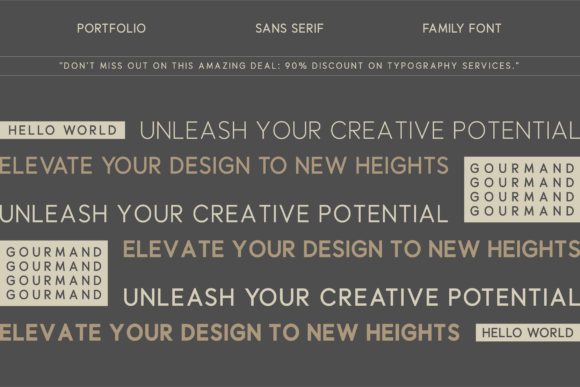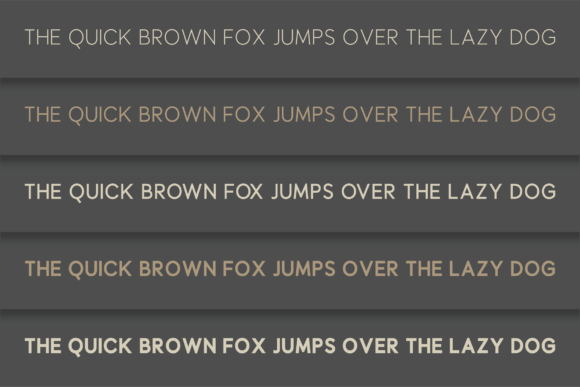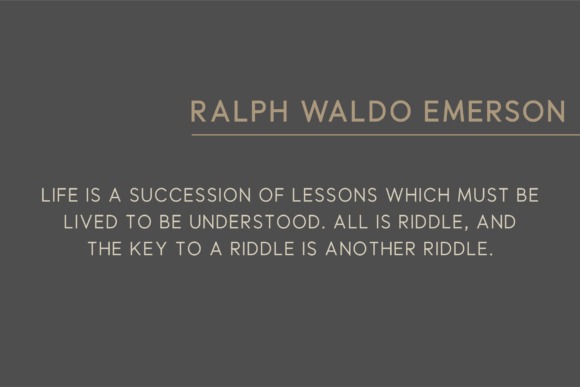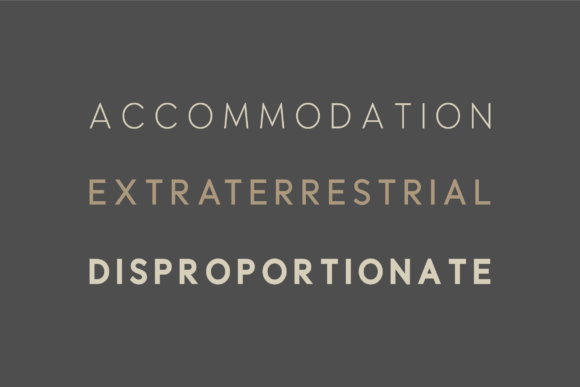
Introducing Gourmand Font Family — A Masterpiece of Elegance and Minimalism
In the realm of typography, few font families manage to strike a perfect balance between elegance and minimalism. However, Gourmand Font emerges as a game-changer, redefining modern design with its sleek and sophisticated sans-serif aesthetic. This meticulously crafted font family is designed to cater to a wide array of design needs, offering 5 distinct weights that ensure unparalleled versatility.
The Essence of Gourmand Font
Gourmand Font is not just a typeface; it’s an experience. Its design is rooted in the principles of precision and attention to detail, making it an ideal choice for projects that demand a high level of sophistication. From the crisp lines of its light weights to the bold statements of its heavier counterparts, Gourmand Font is engineered to adapt seamlessly to various design projects. Whether you’re working on a magazine layout, crafting a logo, or creating a film poster, this font family provides the tools necessary to elevate your work to new heights.
Versatility at Its Core
One of the standout features of Gourmand Font is its versatility. The inclusion of 5 distinct weights means that designers have the flexibility to use a single font family across a wide range of applications. This not only streamlines the design process but also ensures a cohesive visual identity across different platforms and materials. The weights range from a delicate light weight, perfect for body text and finer details, to a robust bold weight, ideal for headlines and attention-grabbing titles.
Timeless Charm and Contemporary Luxury
Gourmand Font embodies the perfect blend of timeless charm and contemporary luxury. Its clean lines and minimalist aesthetic ensure that it remains relevant and stylish, even as design trends evolve. This font family is designed to lend your creations an air of sophistication and elegance, making it an excellent choice for designers who aim to produce work that stands out for its luxury appeal. Whether you’re designing for high-end brands, luxury products, or any project that requires a touch of class, Gourmand Font is the perfect companion.
Unlocking New Levels of Creativity
With Gourmand Font, designers are empowered to push the boundaries of their creativity. The font’s adaptability and aesthetic appeal open up new possibilities for design innovation. By incorporating Gourmand Font into your projects, you’re not just choosing a typeface; you’re embracing a design philosophy that prioritizes elegance, versatility, and impact. This font family serves as a catalyst for creativity, allowing designers to experiment with different weights, styles, and applications to achieve truly unique and compelling designs.
Why Choose Gourmand Font?
- Unparalleled Versatility: With 5 distinct weights, Gourmand Font offers the flexibility needed for a wide range of design projects.
- Elegance and Minimalism: Its sleek sans-serif design strikes the perfect balance between sophistication and simplicity.
- Timeless Appeal: Gourmand Font’s classic aesthetic ensures that your designs remain stylish and relevant over time.
- Contemporary Luxury: Ideal for projects that demand a high-end look and feel.
- Creativity Unleashed: Perfect for designers looking to elevate their work and explore new creative horizons.
Gourmand Font is more than just a font family; it’s a design powerhouse that combines elegance, versatility, and creativity. By integrating Gourmand Font into your design arsenal, you’re equipped to tackle a wide range of projects with confidence and style. Whether you’re a seasoned designer or an aspiring craftsperson, Gourmand Font offers the tools and inspiration needed to transform your designs and unlock a new level of creativity. Embrace the world of Gourmand Font and discover a new dimension of design excellence.